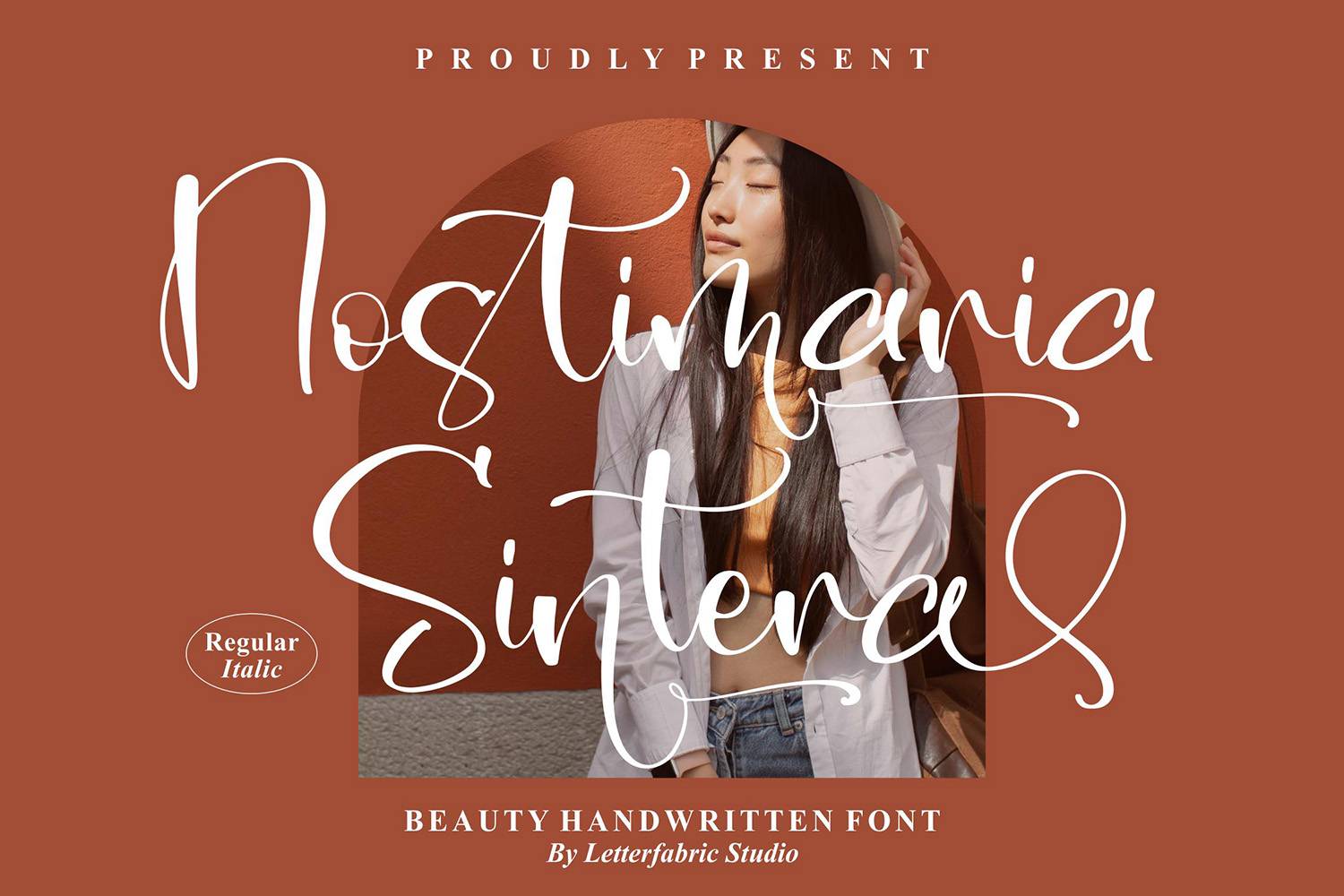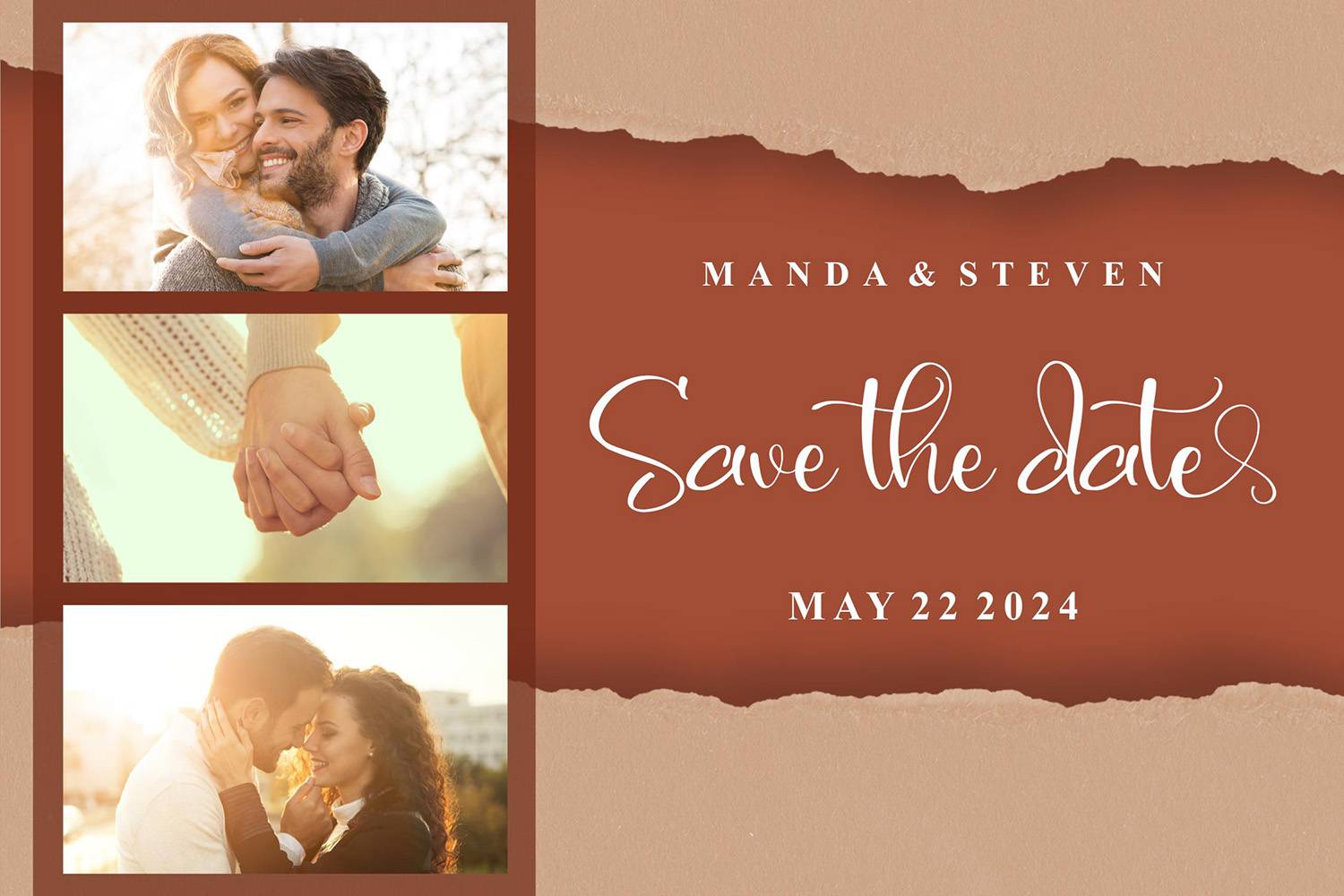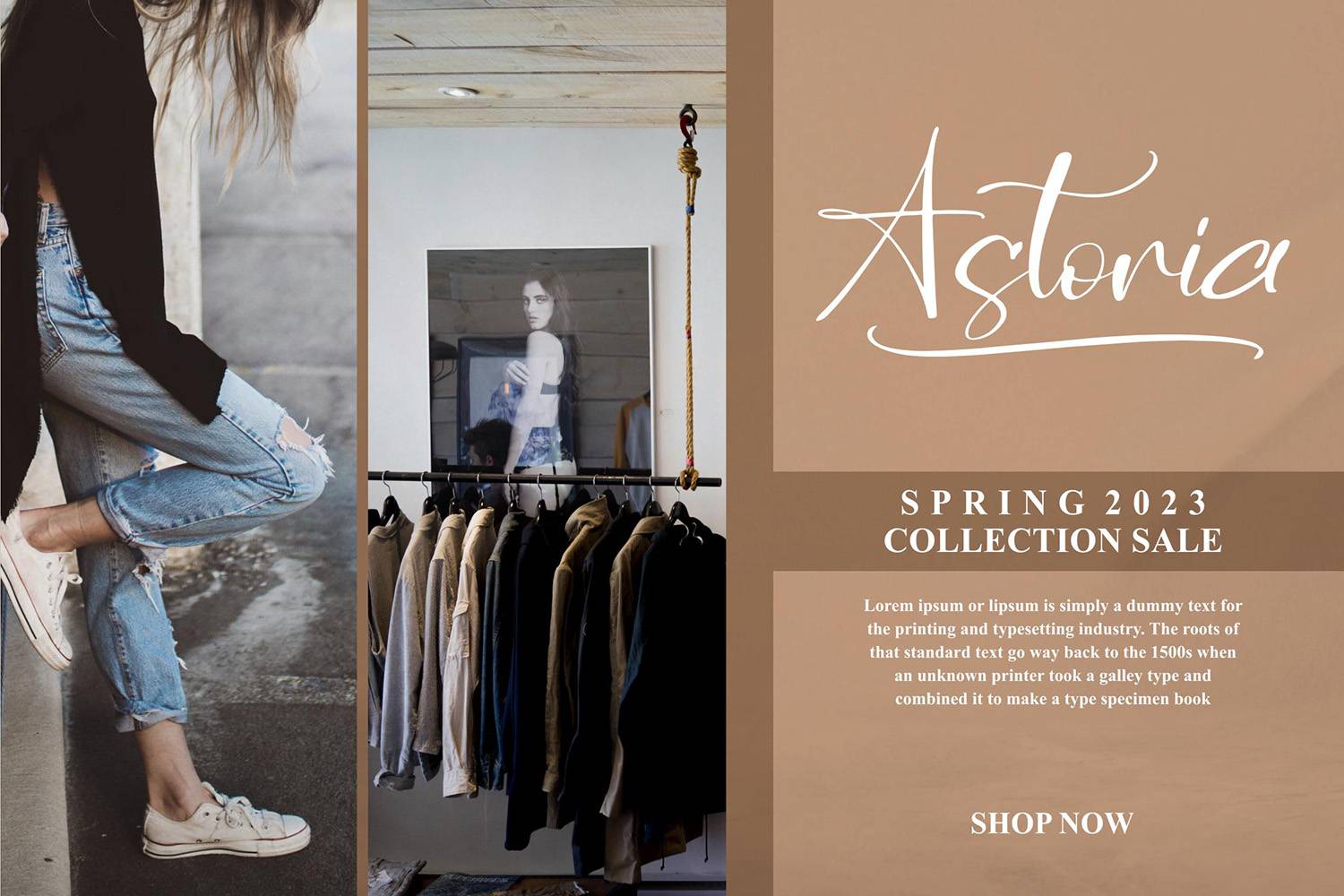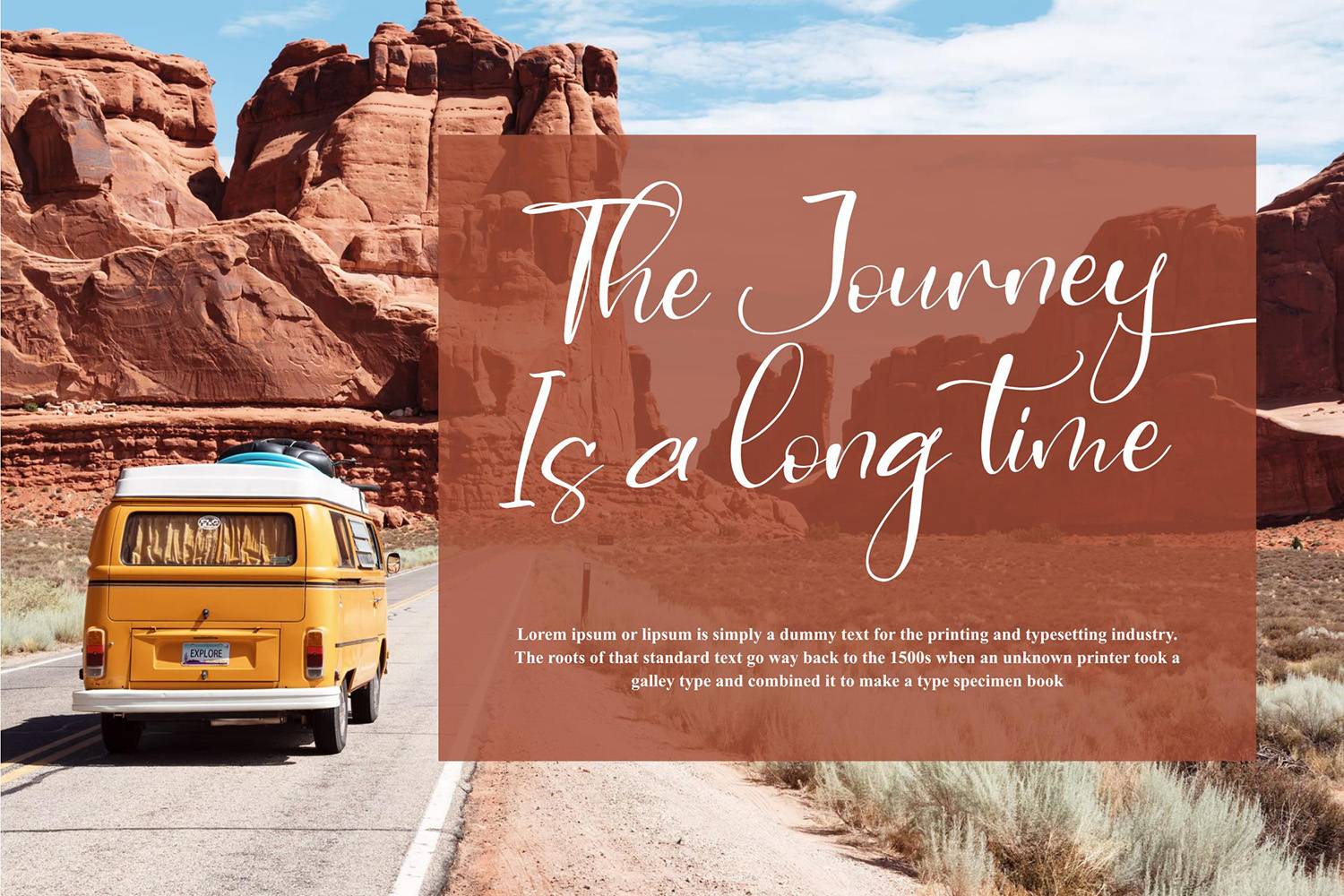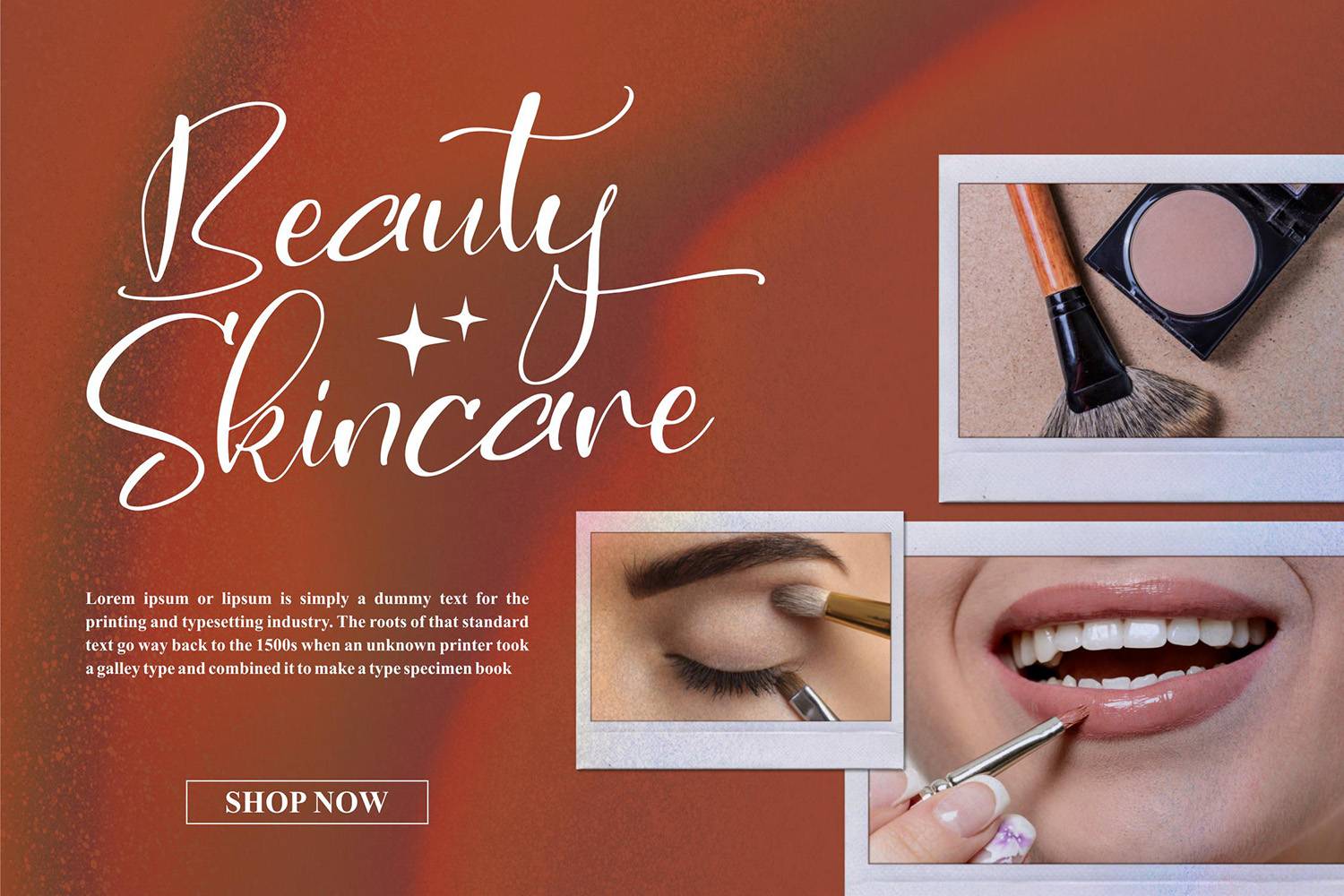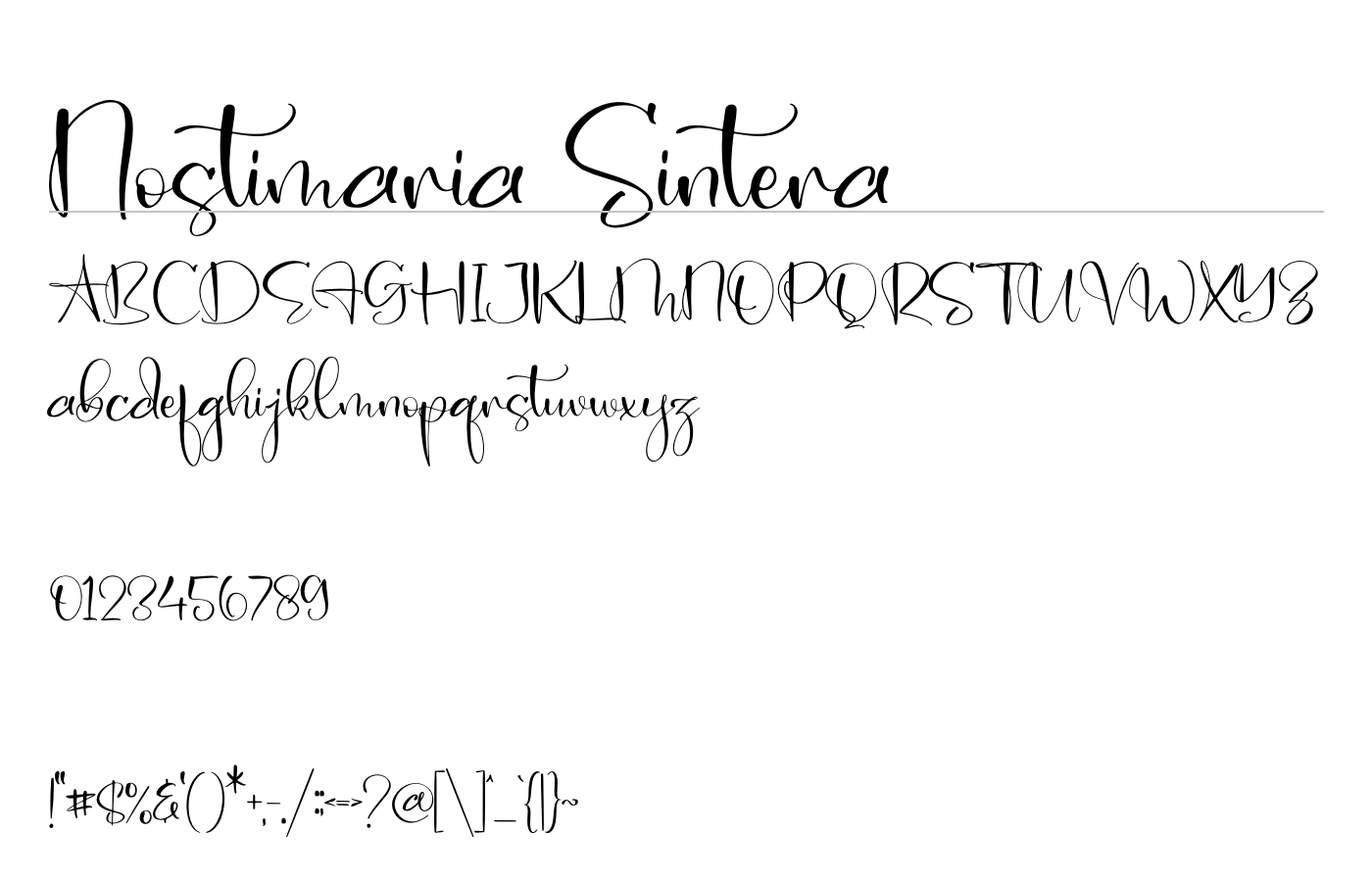
Nostimaria Sintera is a delicate, handwritten script font characterized by its elegant, flowing strokes and refined thin lines. Its tall, slender letterforms with playful flourishes give it a whimsical yet sophisticated feel, making it ideal for creative projects that require a touch of charm and personality, such as invitations, branding, and fashion packaging. This font shines best in headlines and decorative use where its intricate details can be fully appreciated.
Nostimaria Sintera Font
About Nostimaria Sintera Font